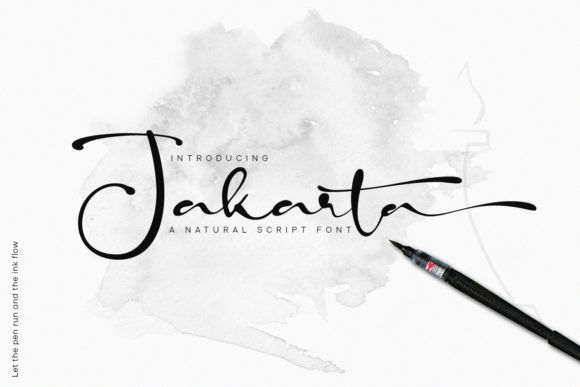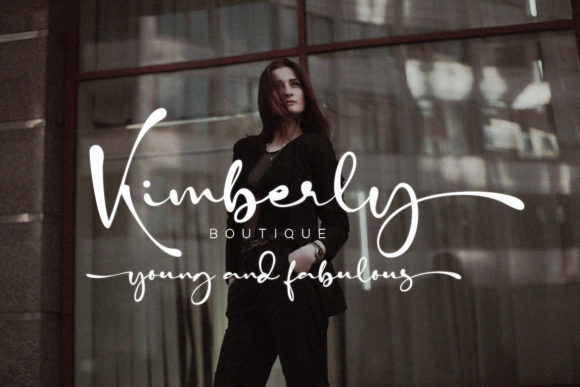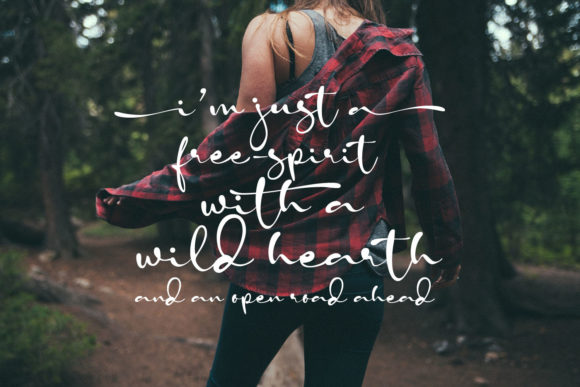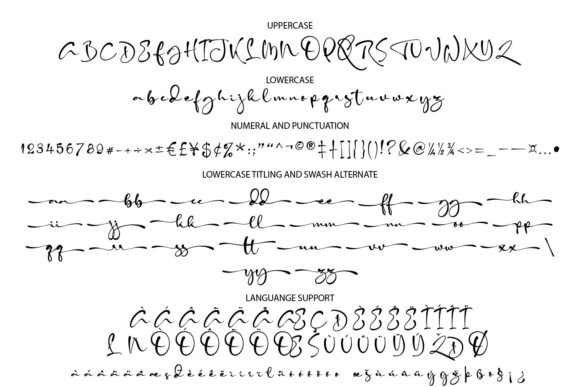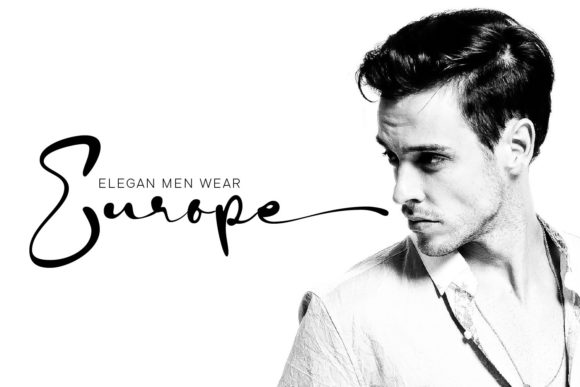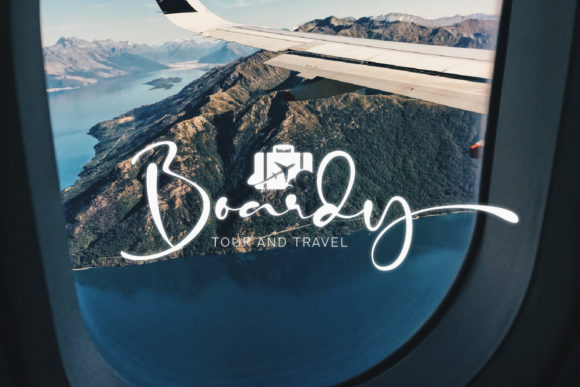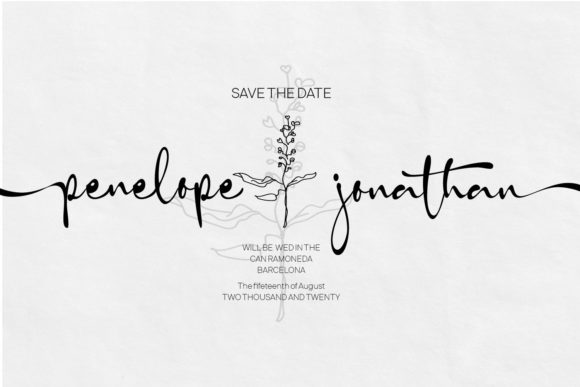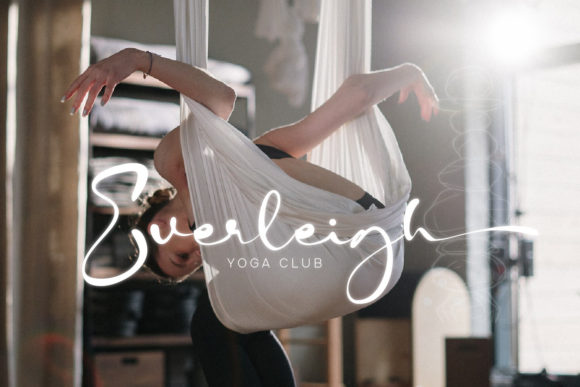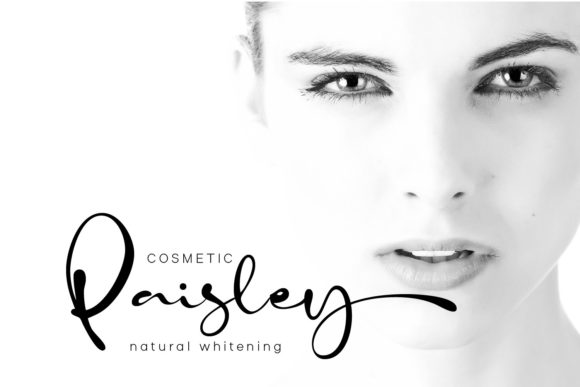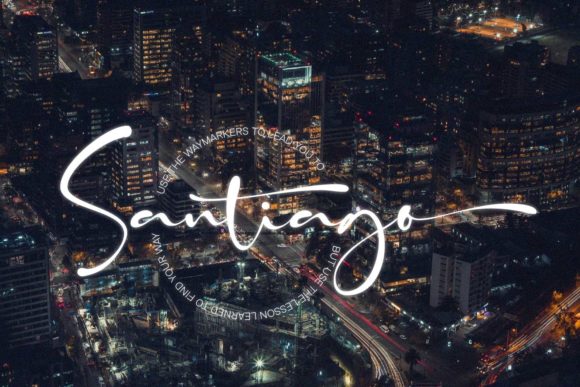
Jakarta Font
About Jakarta Font
Jakarta is a chic and stylish script font that adds a touch of elegance and sophistication to any design. With its clean, thin, and smooth vibe, this font is a perfect choice for various design projects. Whether you’re working on branding, invitations, packaging, or any other creative endeavor, Jakarta font will make a memorable impact.
The clean and thin design of Jakarta font gives it a modern and sleek appearance. Its well-crafted characters and smooth lines create a visually pleasing aesthetic that exudes elegance and style. By incorporating Jakarta into your designs, you can elevate them with its clean and sophisticated vibe.
The versatility of Jakarta font makes it suitable for a wide range of design applications. From logos and headlines to invitations and social media graphics, Jakarta font adds a touch of chicness and refinement. Its delicate and stylish script brings a sense of sophistication to your projects, making them visually appealing and impactful.
The smooth and balanced nature of Jakarta font ensures readability and clarity, allowing your message to shine through. Its clean and thin strokes create a harmonious flow, enhancing the overall visual appeal of your designs. Whether used as a standalone element or in combination with other fonts, Jakarta font adds a touch of elegance and professionalism to your compositions.
Incorporating Jakarta font into your design projects allows you to create a cohesive and stylish visual identity. Its clean, thin, and smooth vibe enhances the overall impact of your designs, making them stand out and leaving a lasting impression.
In summary, Jakarta is a chic, stylish, and delicate script font that brings elegance and sophistication to your designs. Its clean, thin, and smooth vibe adds a modern touch, making it suitable for various design applications. Embrace the versatility of Jakarta font and confidently incorporate it into your projects, and you will witness how it elevates your designs with its chic and stylish charm.